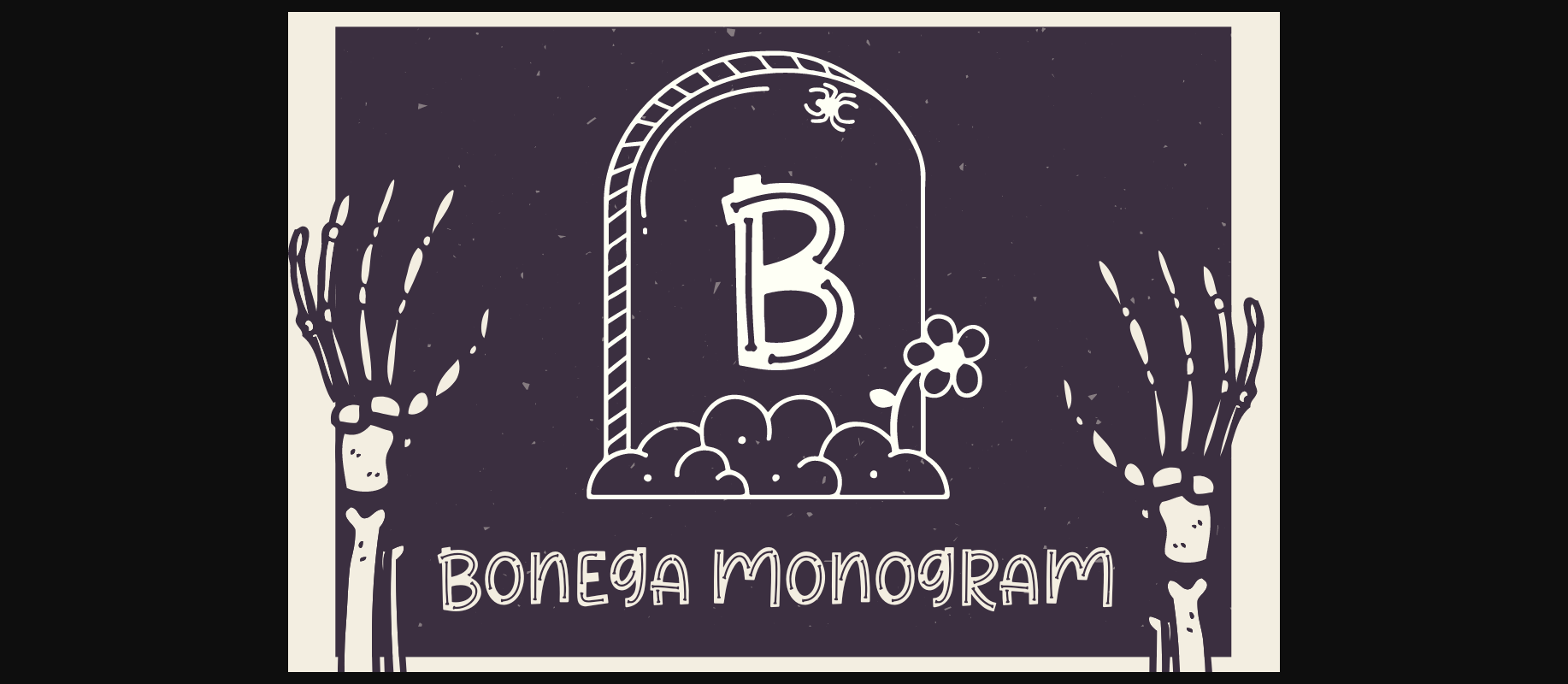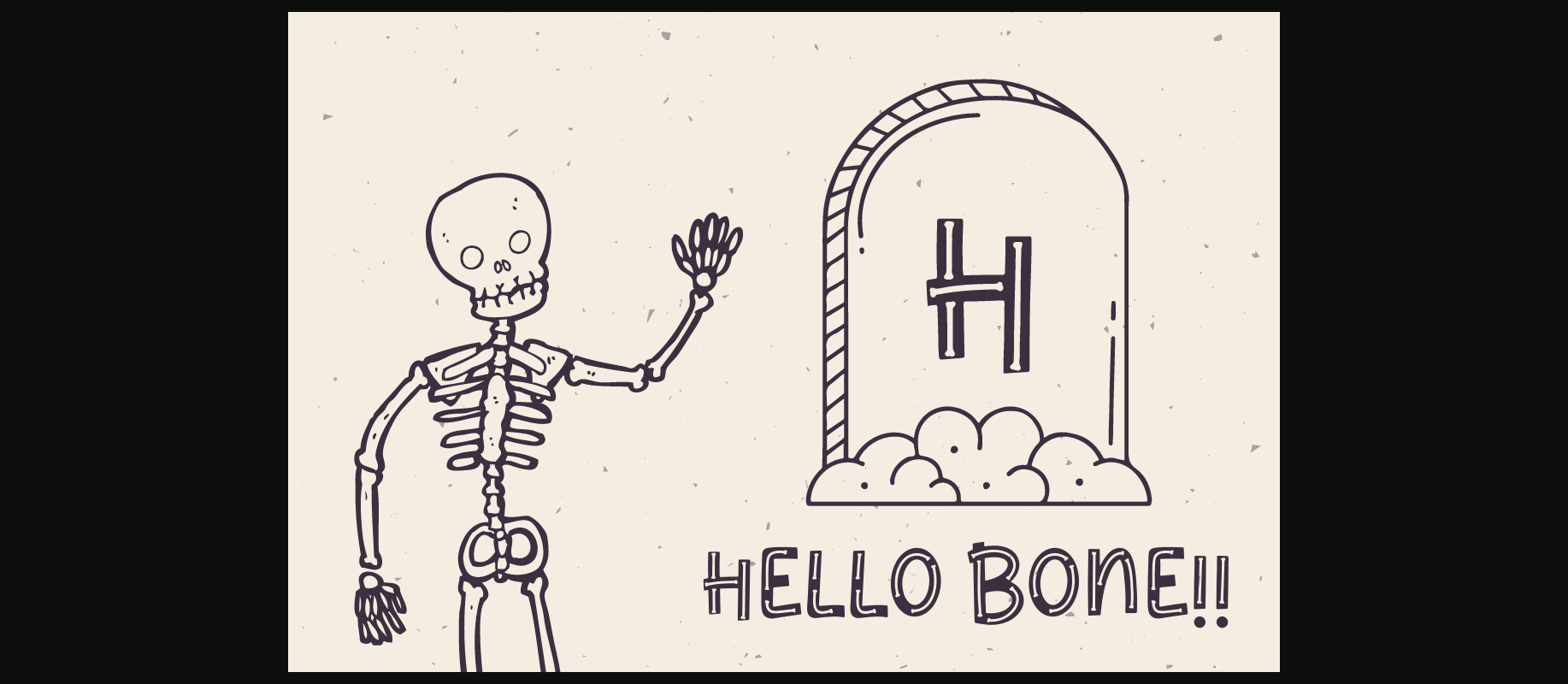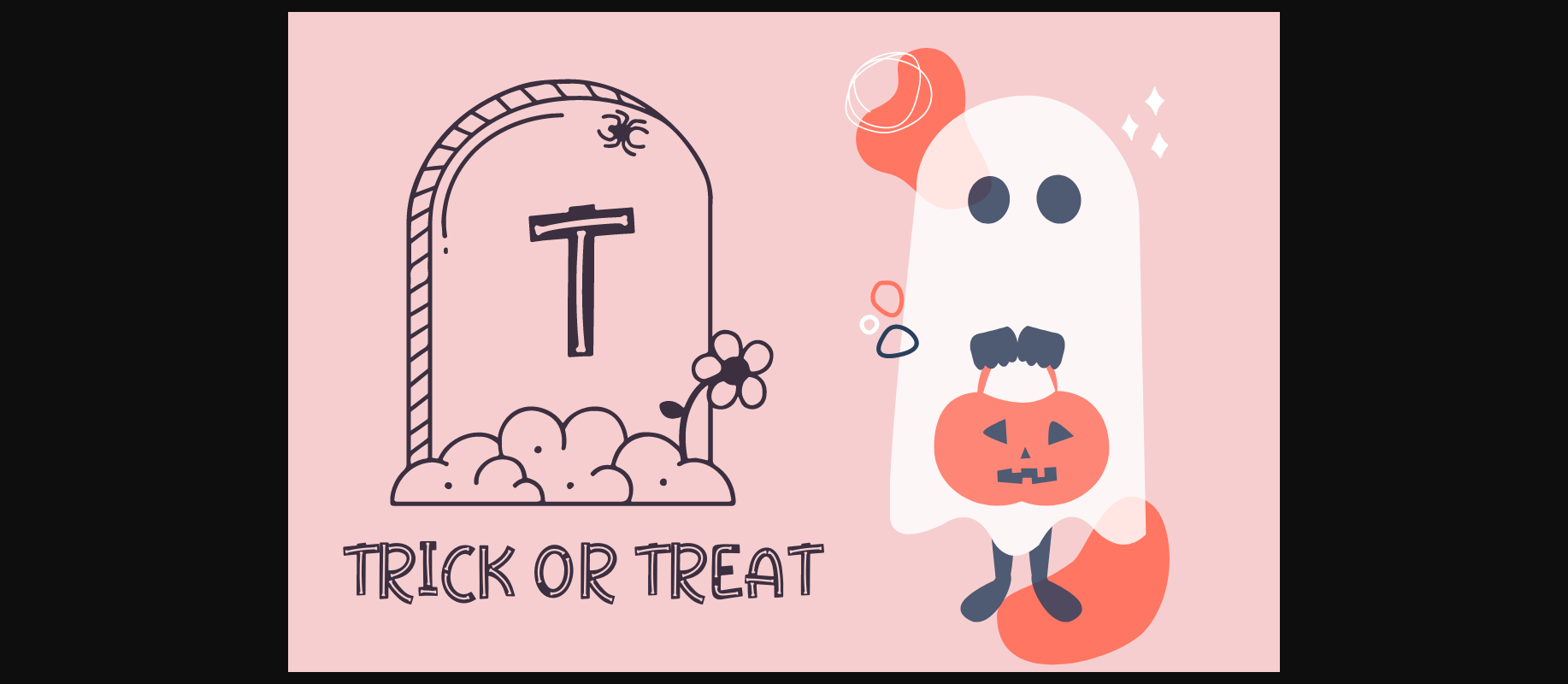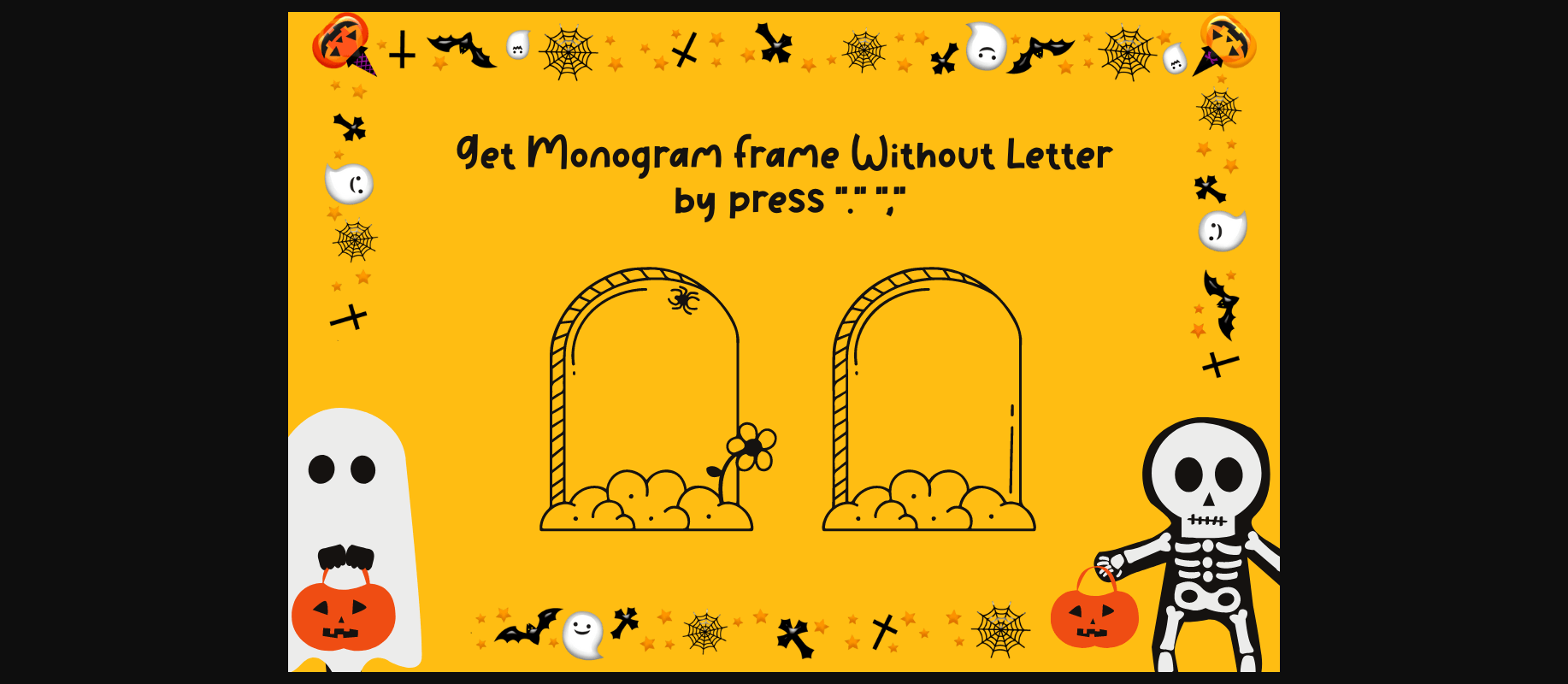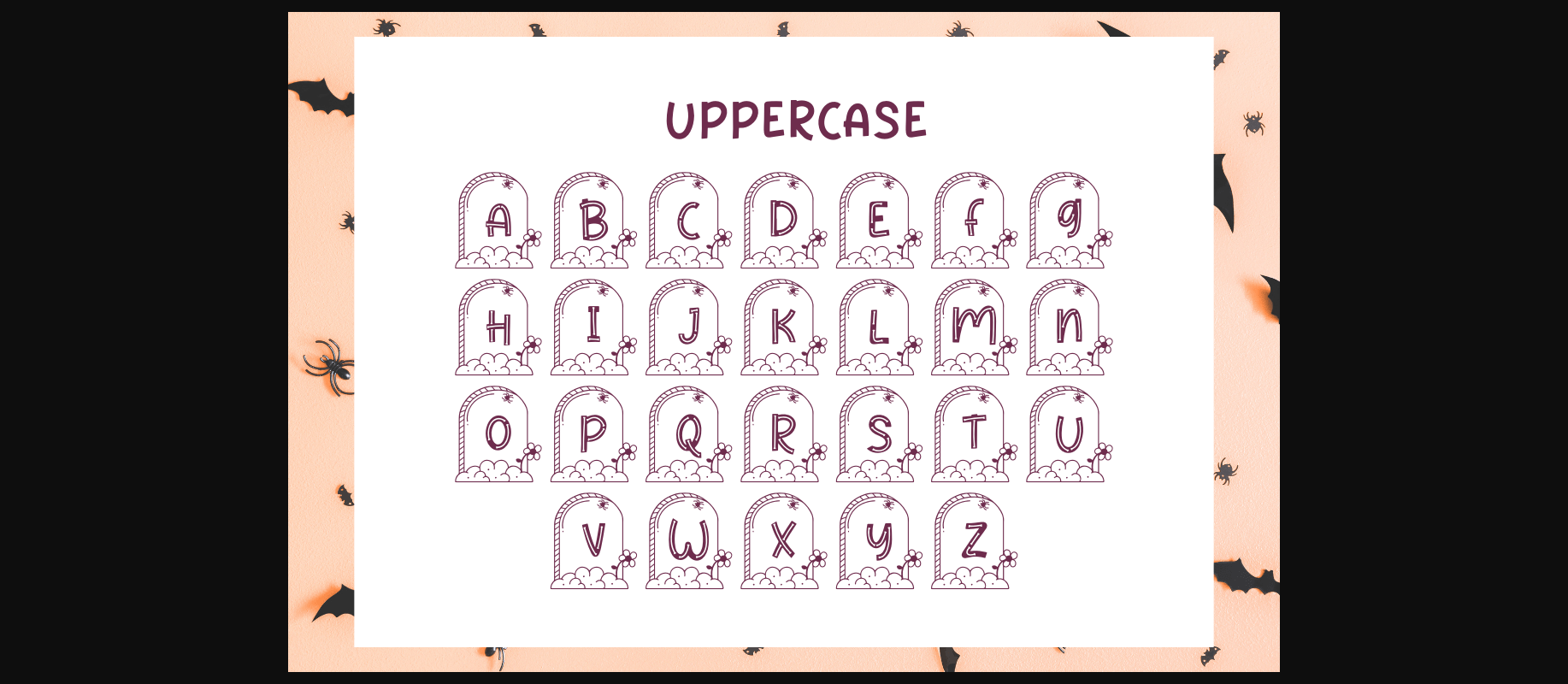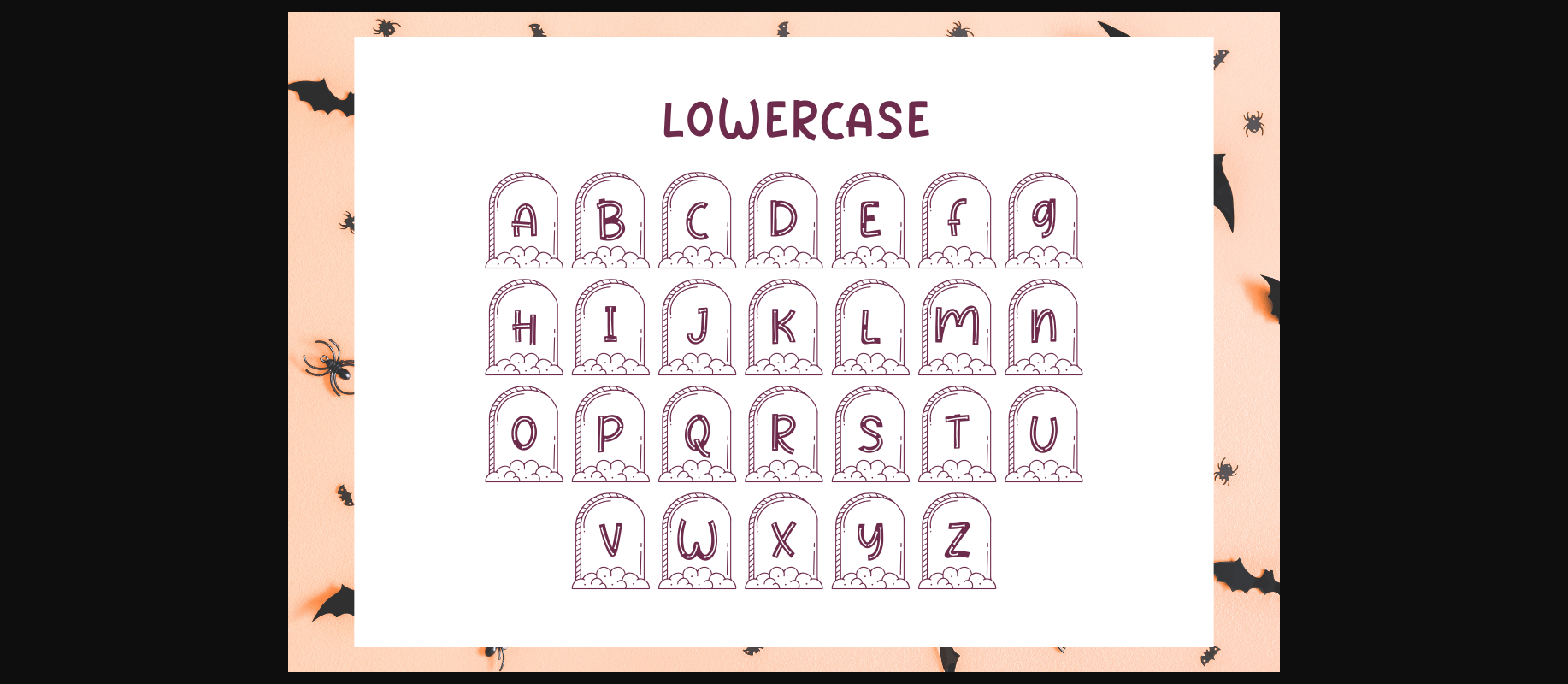
Bonega Monogram Font
About Bonega Monogram Font
Bonega Monogram is a Halloween-themed monogram font. Spooky and scary perfect for your Halloween-related projects, logos, branding, social media posts, or anything that needs a mysterious vibe.